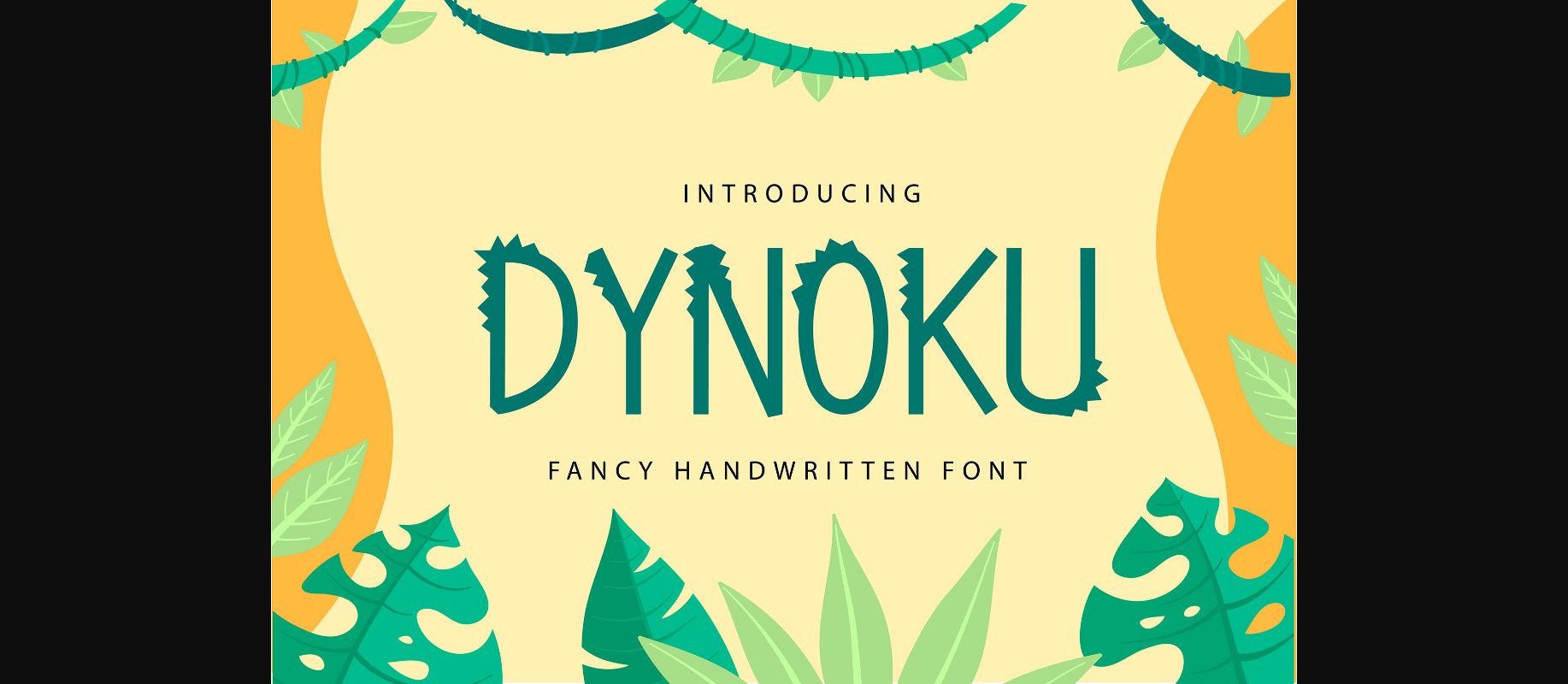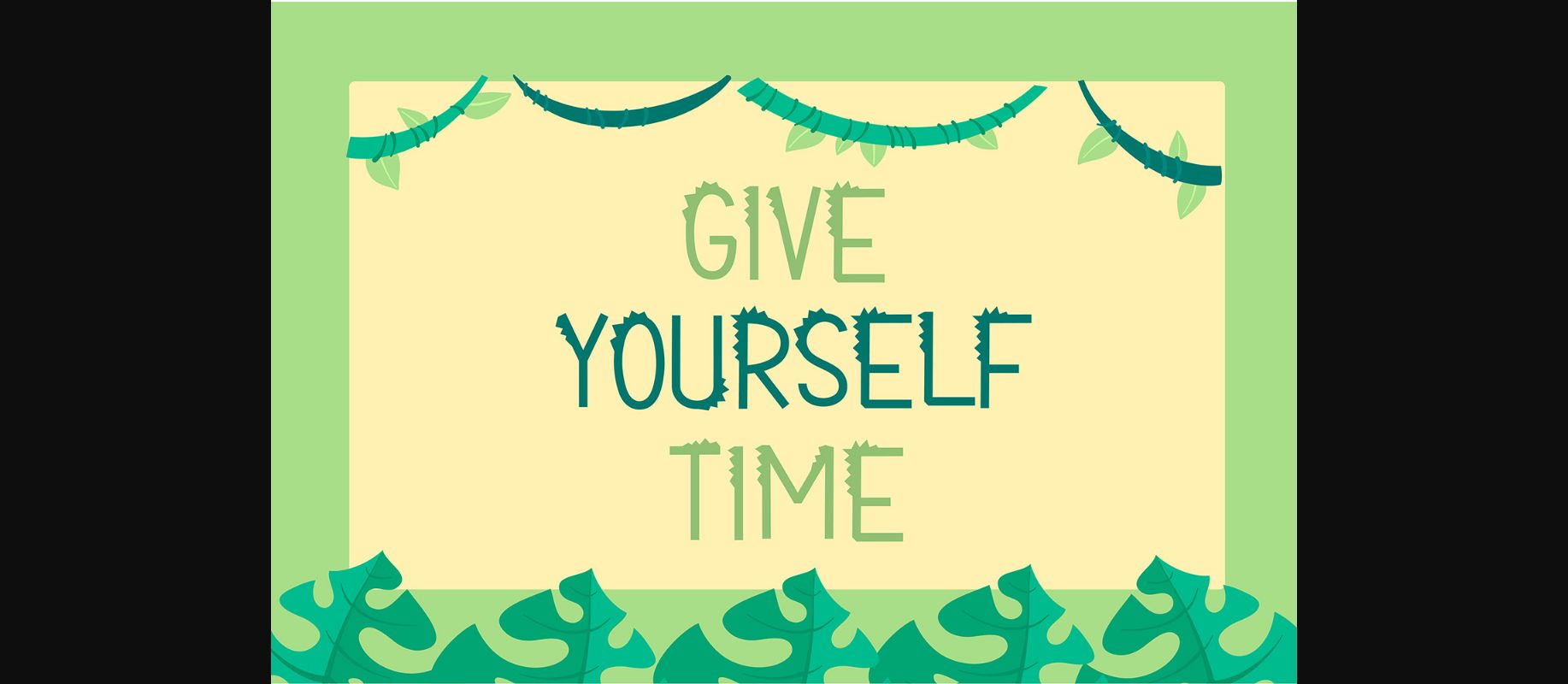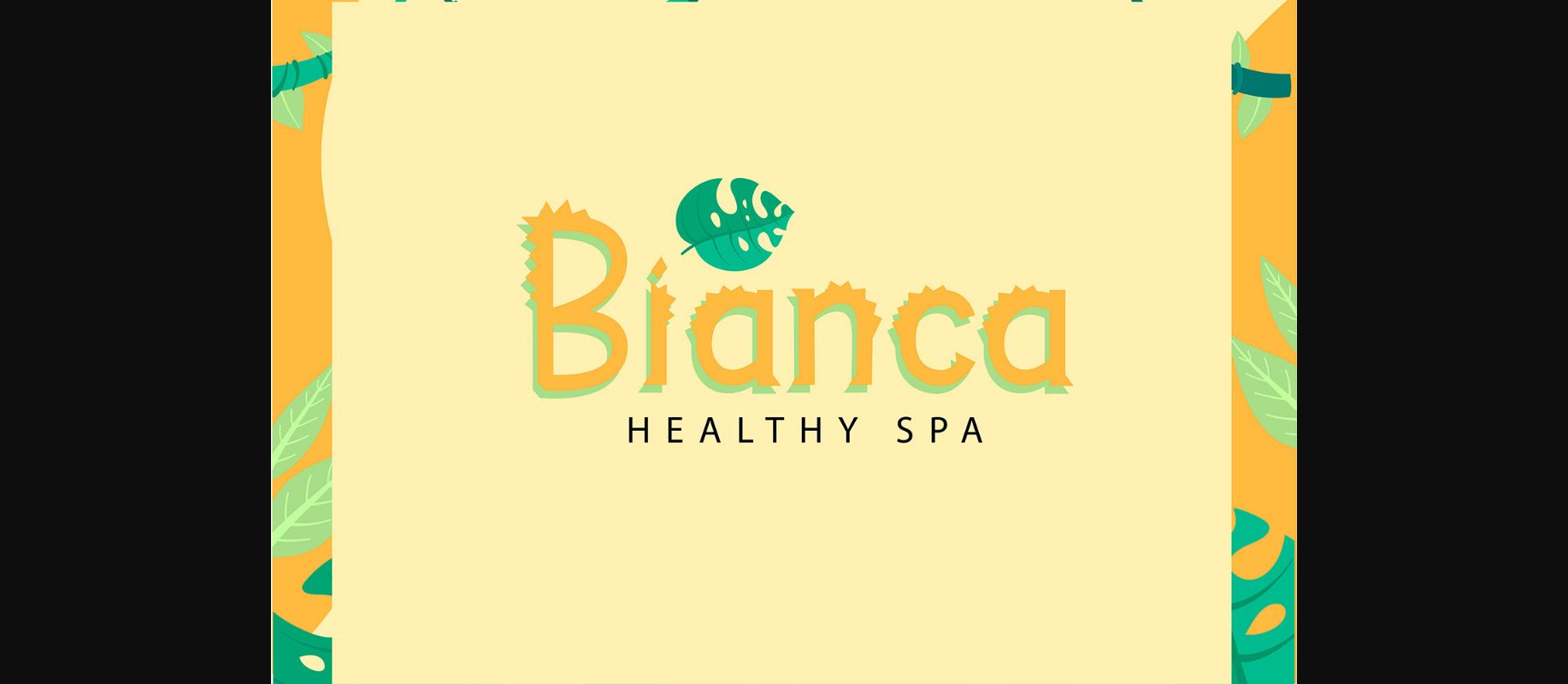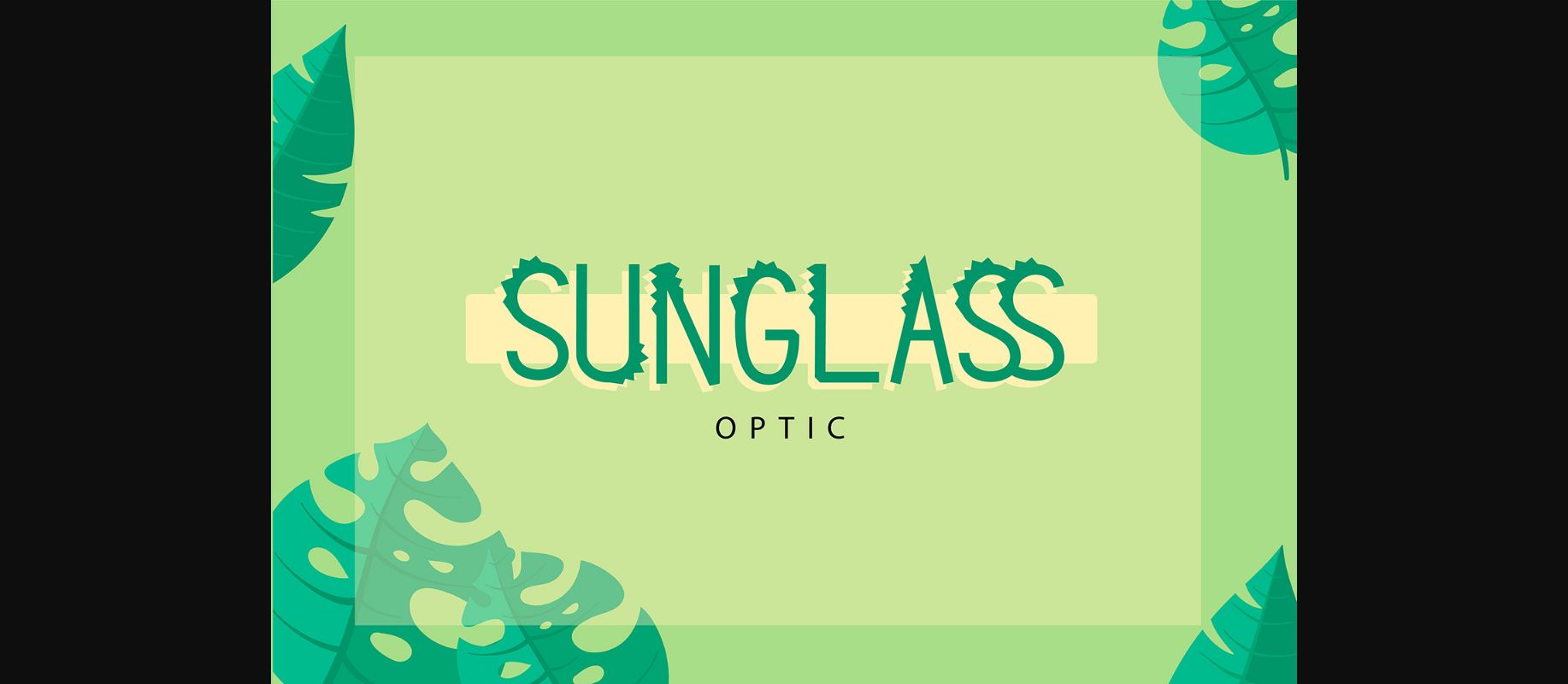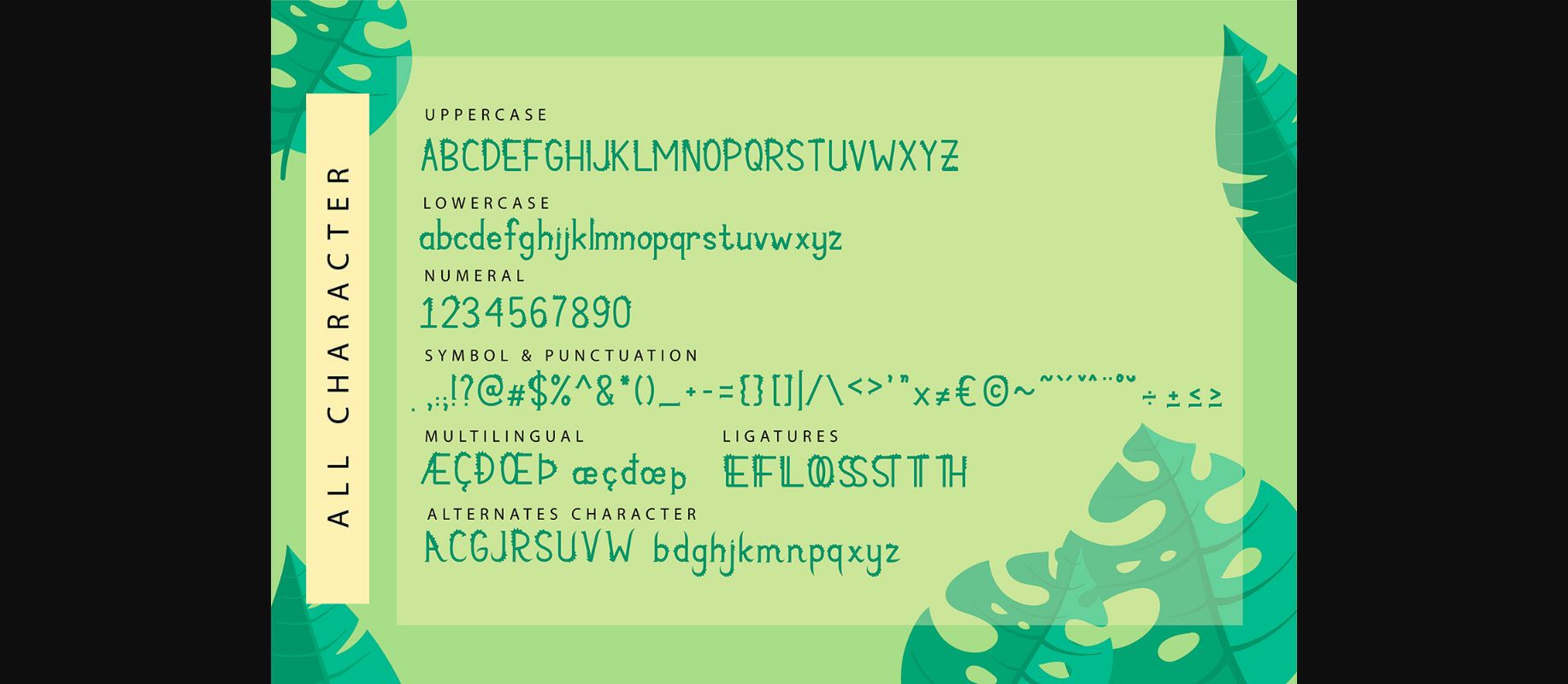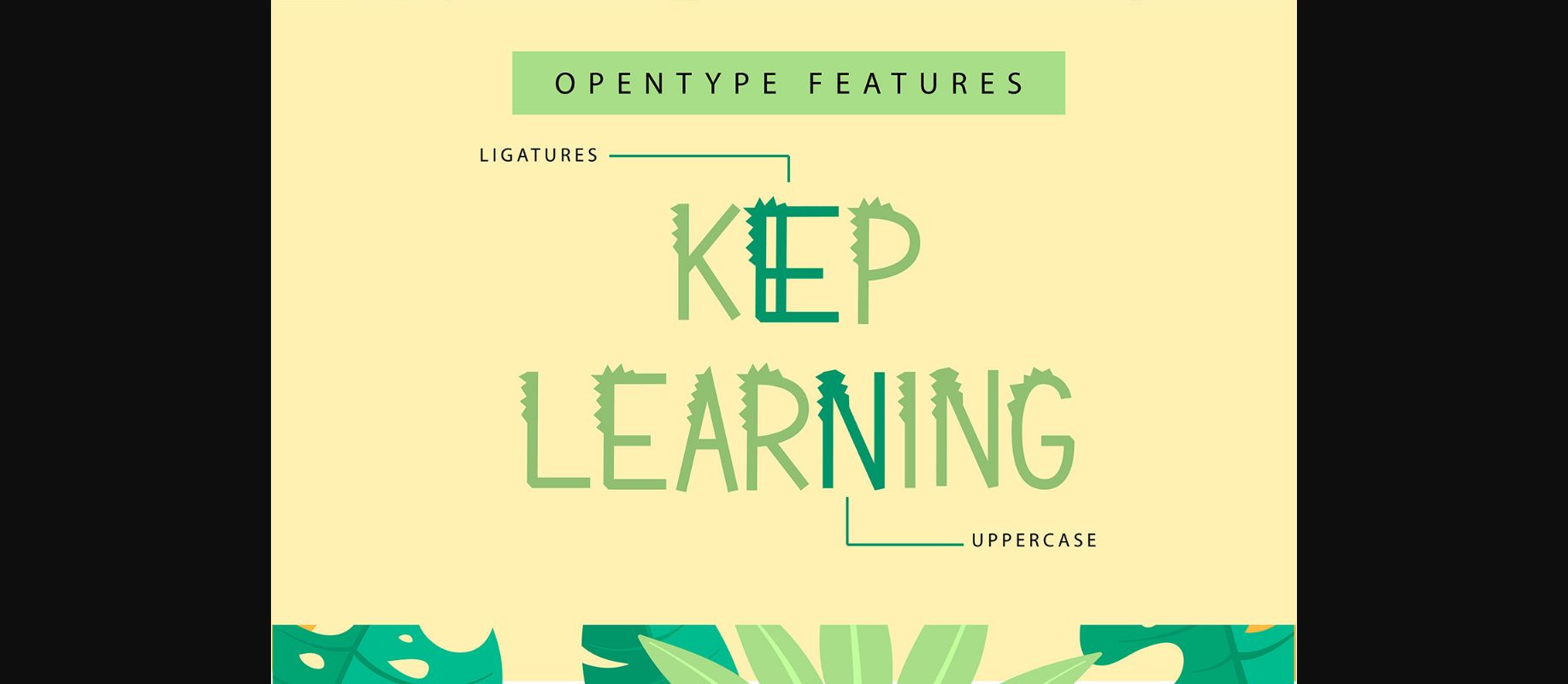
HomeDecorative FontsDynoku Font Decorative Fonts Dynoku Font FacebookXPinterestWhatsApp 1 of 8 ... Dynoku Font Poster 2... Dynoku Font Poster 3... Dynoku Font Poster 4... Dynoku Font Poster 5... Dynoku Font Poster 6... Dynoku Font Poster 7... Dynoku Font Poster 8... About Dynoku Font Dynoku is a playful and fun decorative font, specially created for projects that need inviting typography! Use it for games, toys, storybook covers, children’s apparel designs, stationery items, or more. DOWNLOAD NOW People also explored Welcome Coffee Time Font Hillary Font Ministry A Pro Bottega Font Stephen Font Yunita Font Lomeshing Font Brocklyne Font Unicorn Font 280 0 TagsDynokuDynoku Font Previous articleBoldgram FontNext articleMonogram Christmas Ornament Font LEAVE A REPLY Cancel reply Comment: Please enter your comment! Name:* Please enter your name here Email:* You have entered an incorrect email address! Please enter your email address here Website: Save my name, email, and website in this browser for the next time I comment. Personal Use Free Heart Memory Personal Use Free Read more about this font Bebas Neue Font Personal Use Free Read more about this font Persephone Free Personal Use Free Read more about this font Multicolore Personal Use Free Read more about this font BLOG Free Fonts Risk: Why Free Fonts Can Be Dangerous for Designers Free Fonts Risk: Why Free Fonts Can Be Dangerous for Designers Using free fonts is a common practice in web and graphic design. However, the... Transform Your Website: Elevate Your Typography with 7 Best Web Font Generators Top 7 Google Fonts Alternatives for Faster and Privacy-Friendly Web Design (2025) The 10 Best Handwriting Fonts to Add Personality to Your Designs